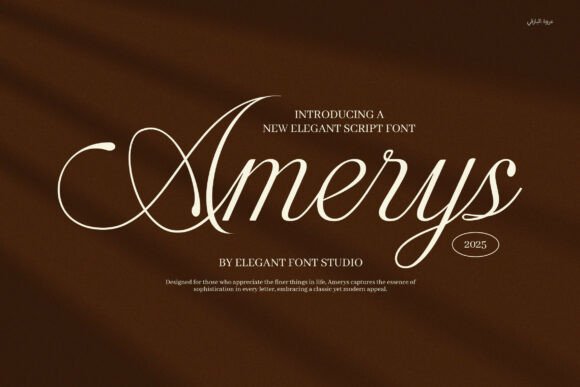
The Elegance of Amerys Font: A Designer’s Delight
I still remember the project that made me fall in love with the Amerys font. I was working on a luxury brand campaign, and my client requested a sophisticated, high-end look for their invitations and marketing materials. I spent hours scouring font libraries, but nothing seemed quite right – until I stumbled upon Amerys. Its elegant script and refined curves immediately caught my eye, and I knew I’d found the perfect fit. In this article, I’ll share my experience with Amerys, its features, and how to make the most of this beautiful font.
An Honest Review of Amerys Font
- ✨ Elegant and refined curves: Amerys boasts luxurious, flowing connections that add a touch of sophistication to any text.
- ✅ Delicate contrast: The subtle variation between thick and thin lines creates a beautiful rhythm, making each word feel carefully crafted.
- ✨ Long, sweeping flourishes: The elegant swashes and fine-line strokes add a classic appeal, perfect for high-end designs.
- ✅ Readability: Despite its ornate features, Amerys remains surprisingly readable, making it suitable for professional projects.
While Amerys is an exceptional font, it’s not without its quirks. For instance:
- ⚠️ Occasional kerning issues: As with many script fonts, you may need to adjust kerning for optimal results, especially when using longer texts.
- 🤔 Limited use in body text: Amerys is best suited for headlines, titles, and short paragraphs; its ornate features may become overwhelming in longer texts.
- Experiment with OpenType features, such as swashes and stylistic alternates, to add visual interest.
The Story Behind Amerys Font
Amerys was designed by a team of typographers who sought to create a font that would blend classic beauty with a modern touch. Inspired by traditional calligraphy and elegant scripts, they crafted a typeface that would evoke a sense of luxury and sophistication. The result is a font that feels both refined and approachable.
| What is Amerys font best suited for? | Amerys is perfect for luxury brands, high-end editorial projects, and creative designs where elegance and sophistication are key. |
| Can I use Amerys for body text? | While Amerys is readable, it’s best suited for headlines, titles, and short paragraphs. For longer texts, consider pairing it with a serif font. |
| Is Amerys a versatile font? | Yes! Amerys can be used in various design contexts, from digital graphics to print materials, and even web design. |